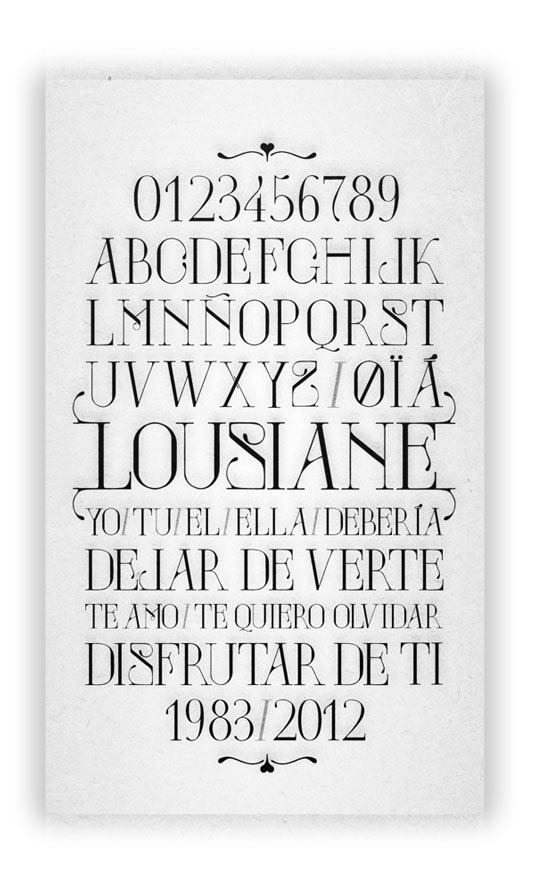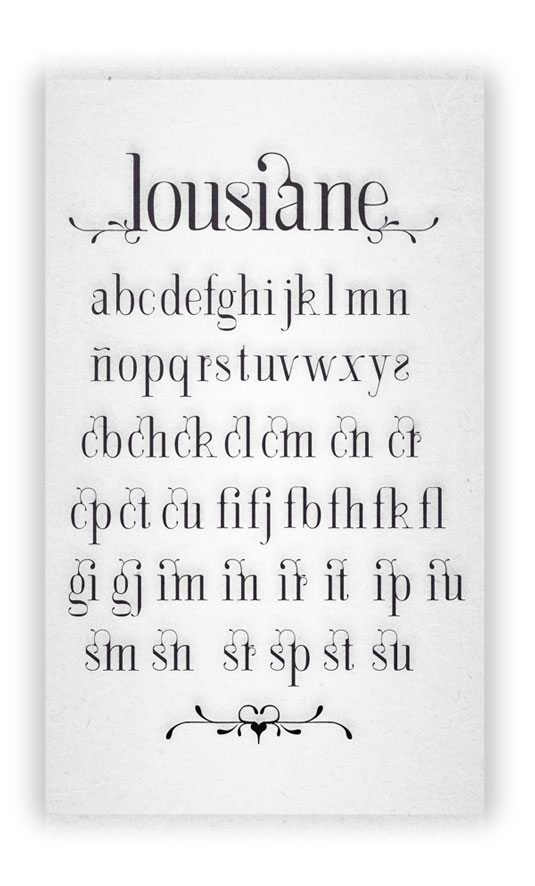
Font of the day: Lousiane
Lousiane by JuanJo Rivas del Rio
Graphic designer JuanJo Rivas del Rio created this gorgeous font Lousiane, describing it as a 'neo art nouveau type specimen'. Based in the small town of Malaga, del Rio's passions include typography, a subject on which he has lectured at events including TDC (Type Directors Club) and SDW (Sevilla Design Walk).